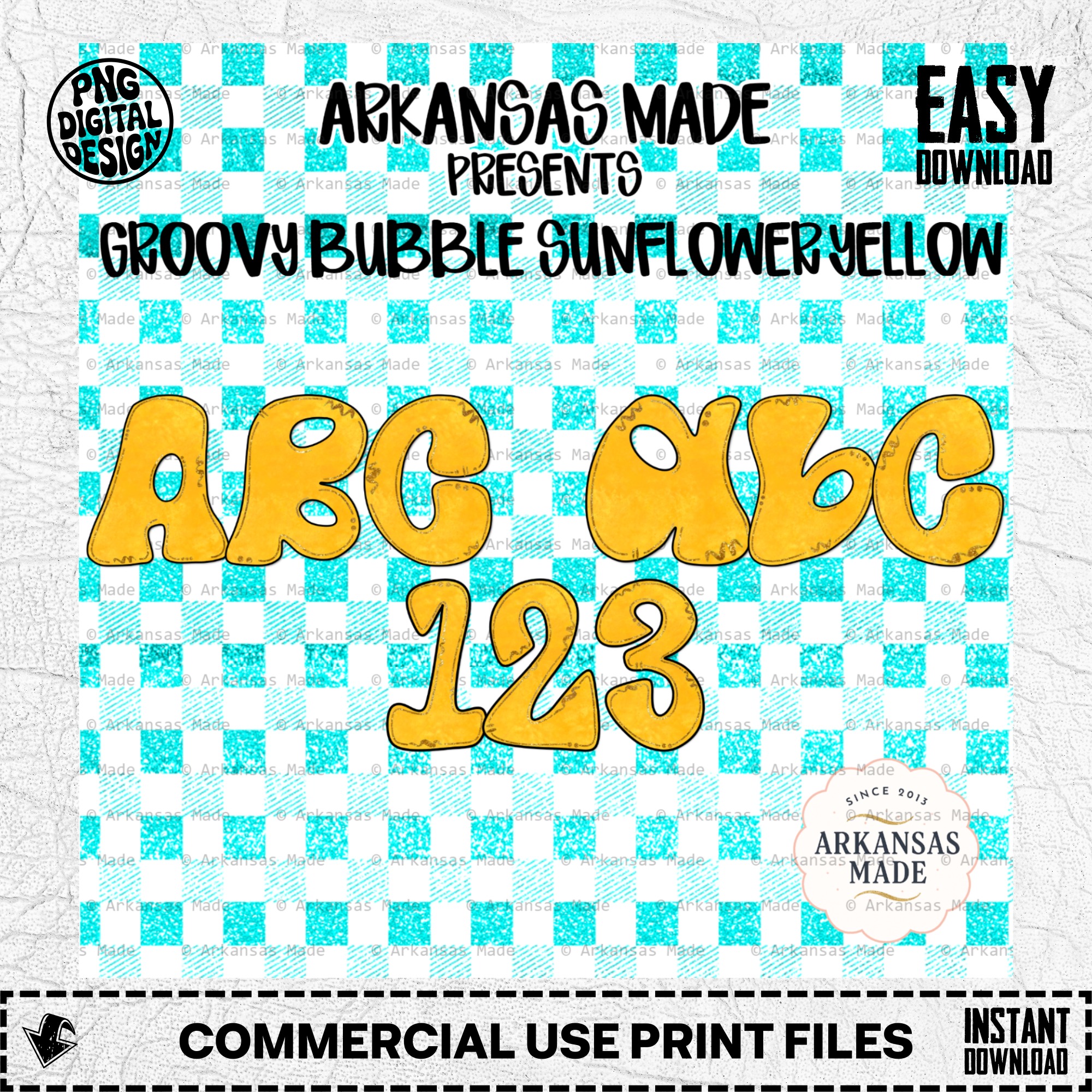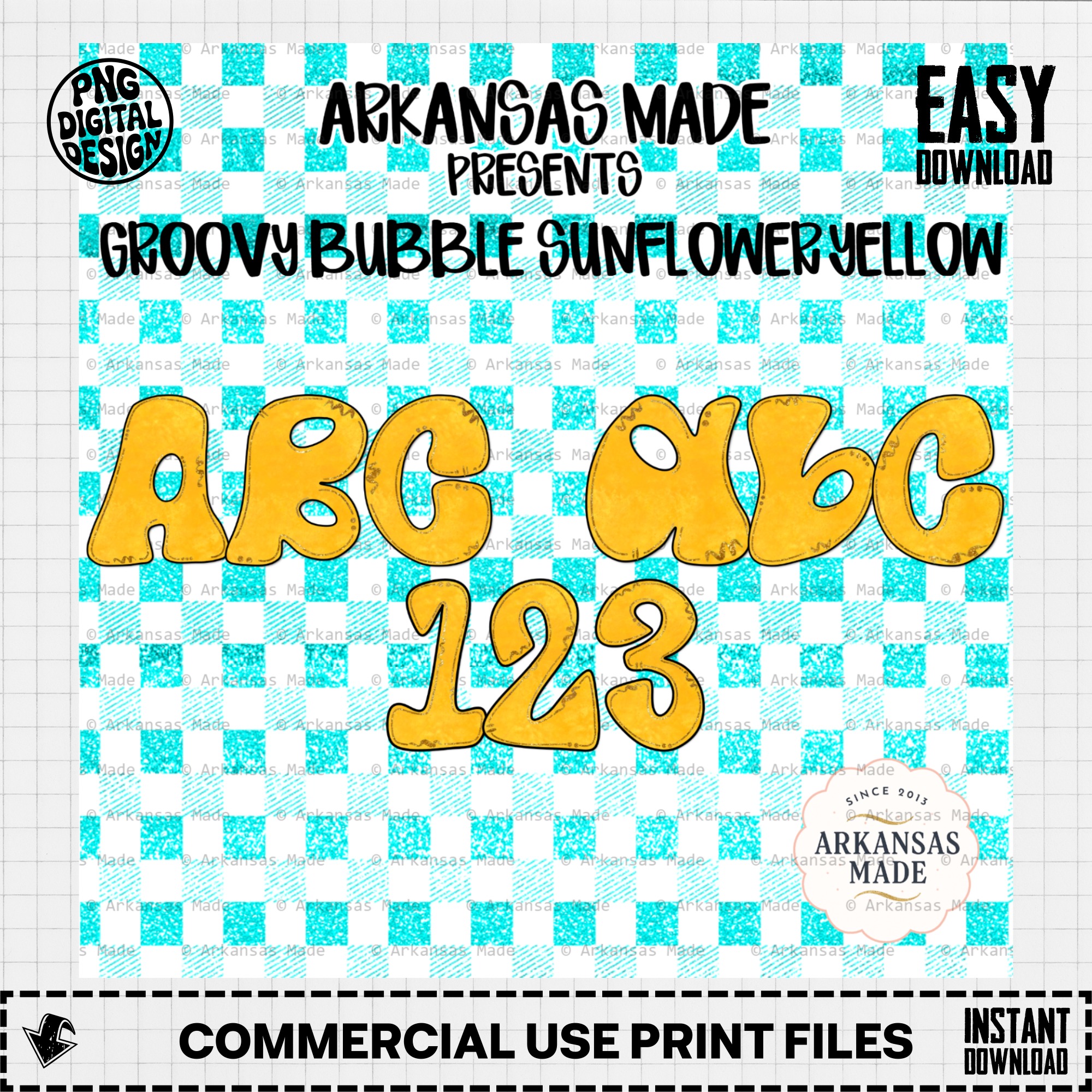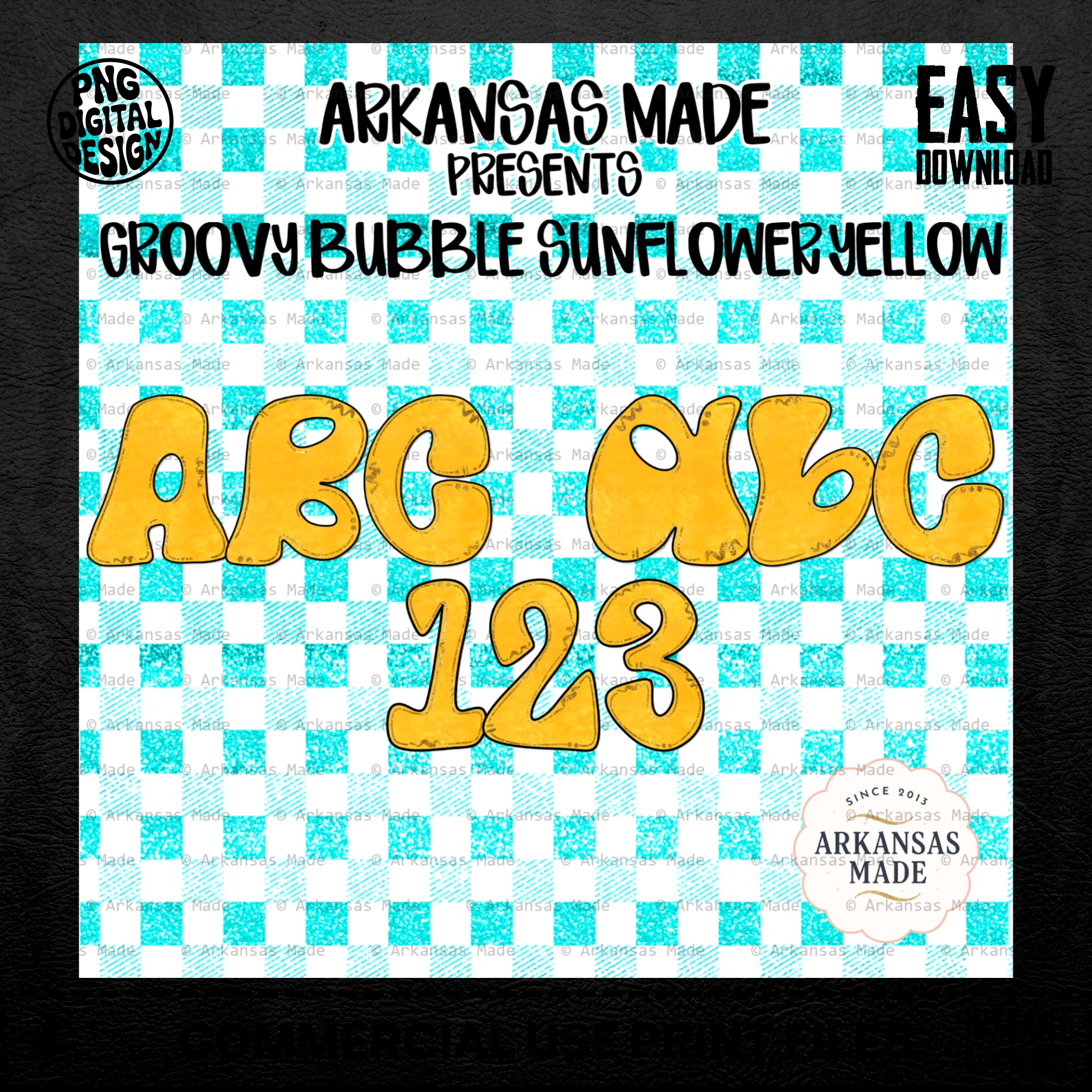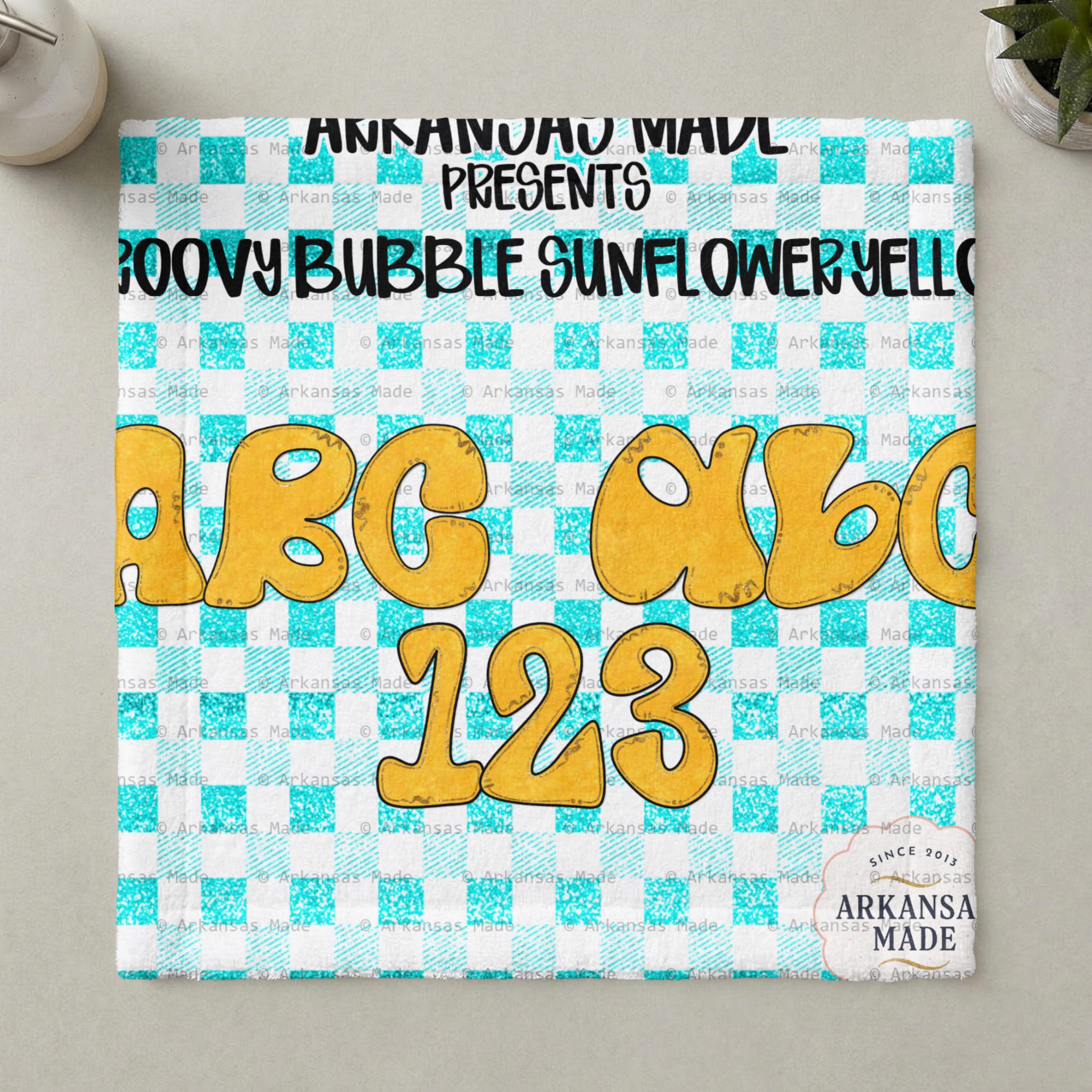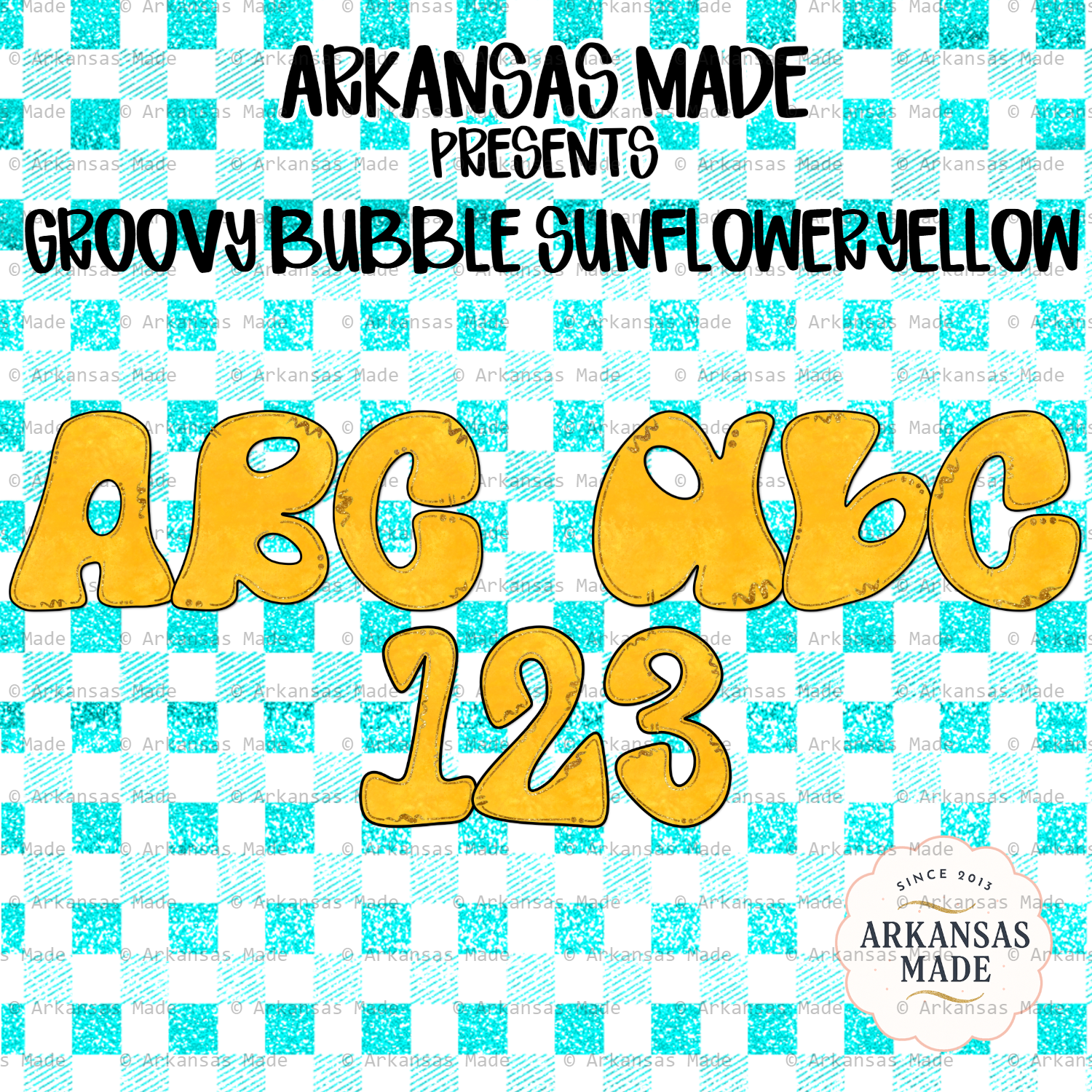
Dive into the retro vibe with our Groovy Bubble Letters Digital Alpha PNGs. This instant download features a full alphabet and numbers for all your creative projects! Embrace the playful, funky aesthetic of the 70s with this versatile digital alphabet and numbers pack. Perfect for crafters, designers, and small business owners, these textured yellow effect letters are ideal for creating unique apparel, personalized gifts, party decorations, or educational materials. Elevate your sublimation, print-on-demand, and DIY endeavors with this vibrant, easy-to-use resource.